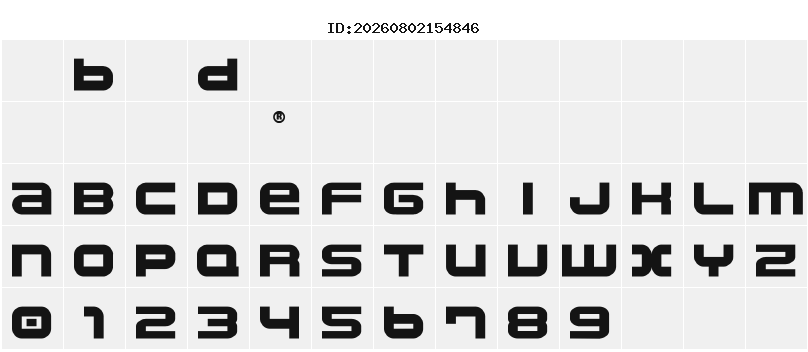
• Font Name: namco regular
• Full Font Name: namco regular
• Copyright: akihiro love namco (C) 1998
About namco regular.ttf
namco regular.ttf is a modern, elegant sans-serif font designed for ultimate readability and visual harmony. Perfect for branding, headlines, web design, and print materials.